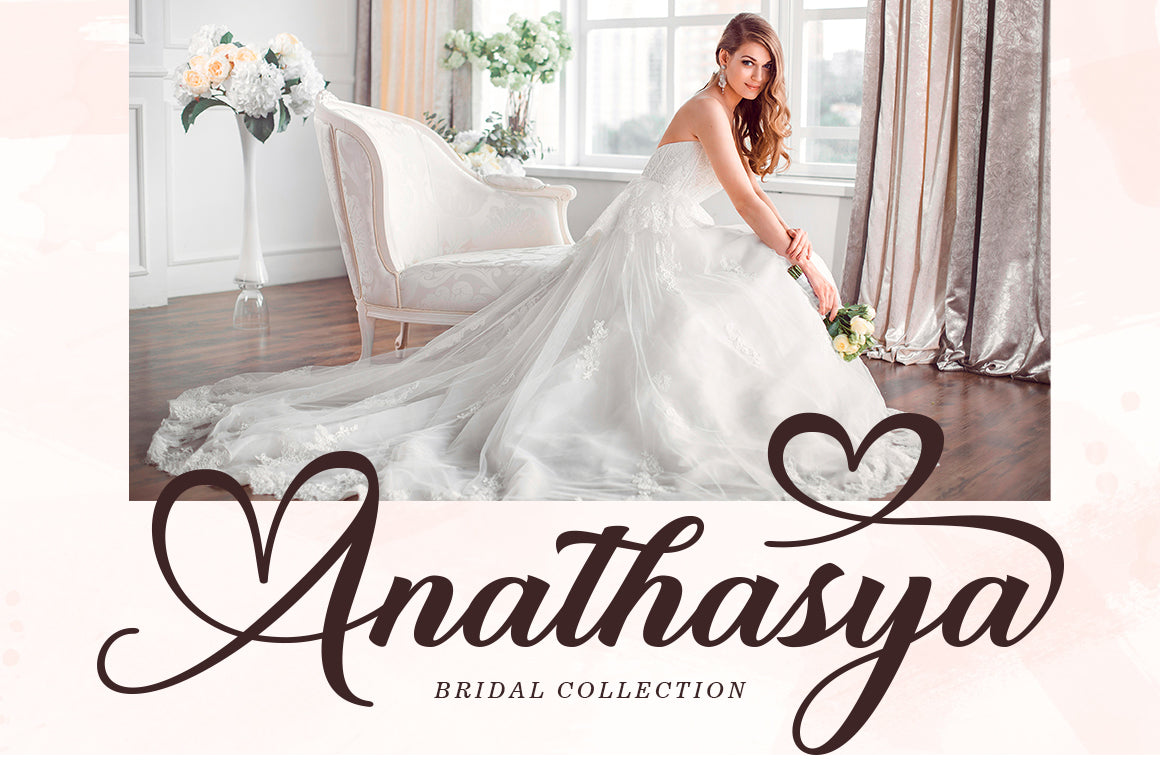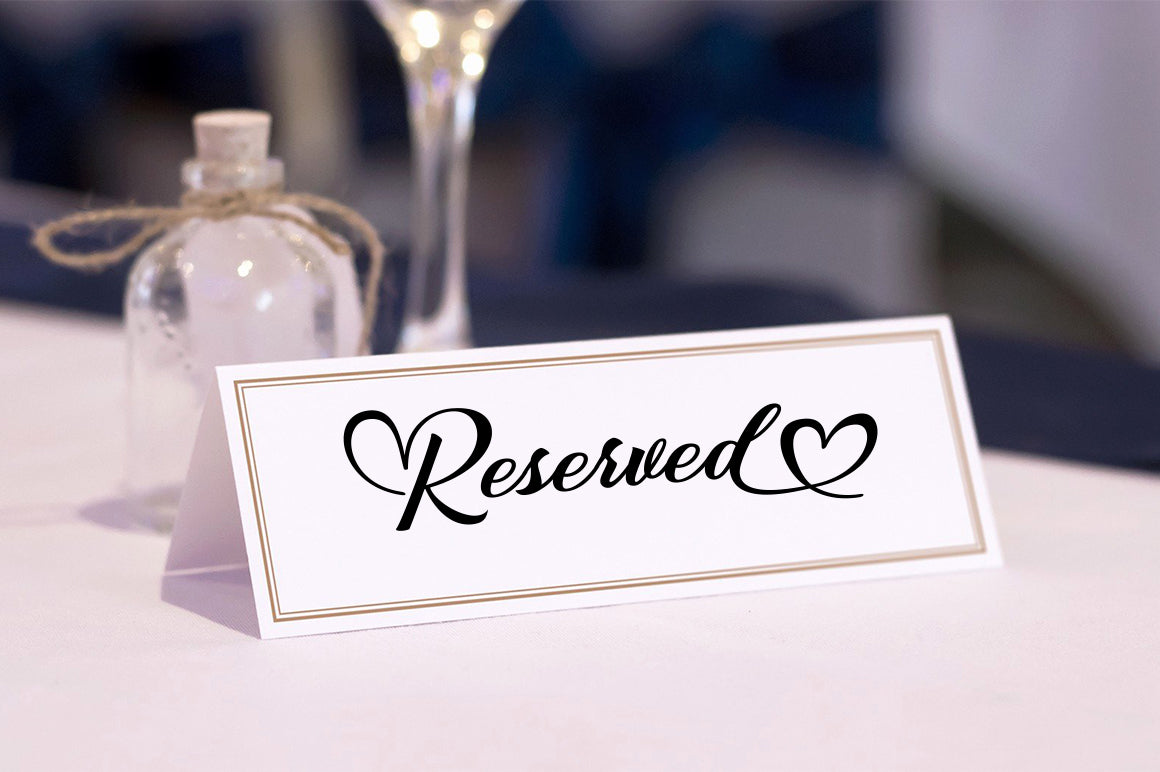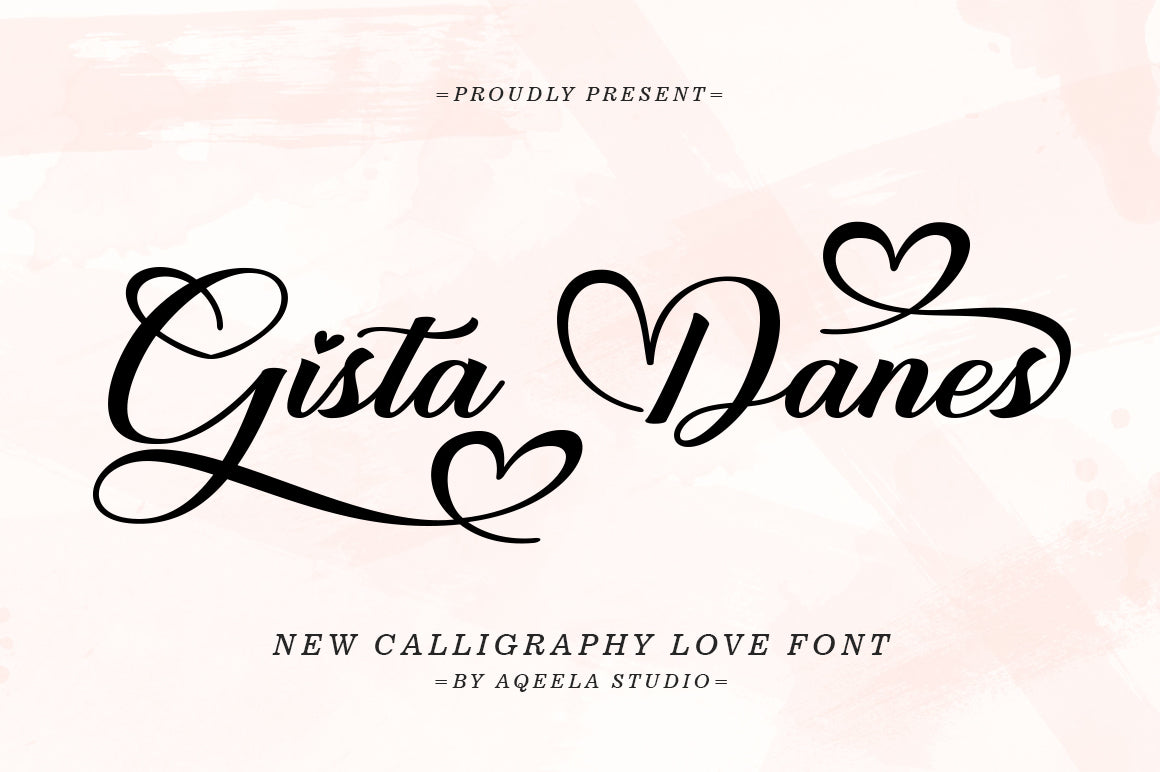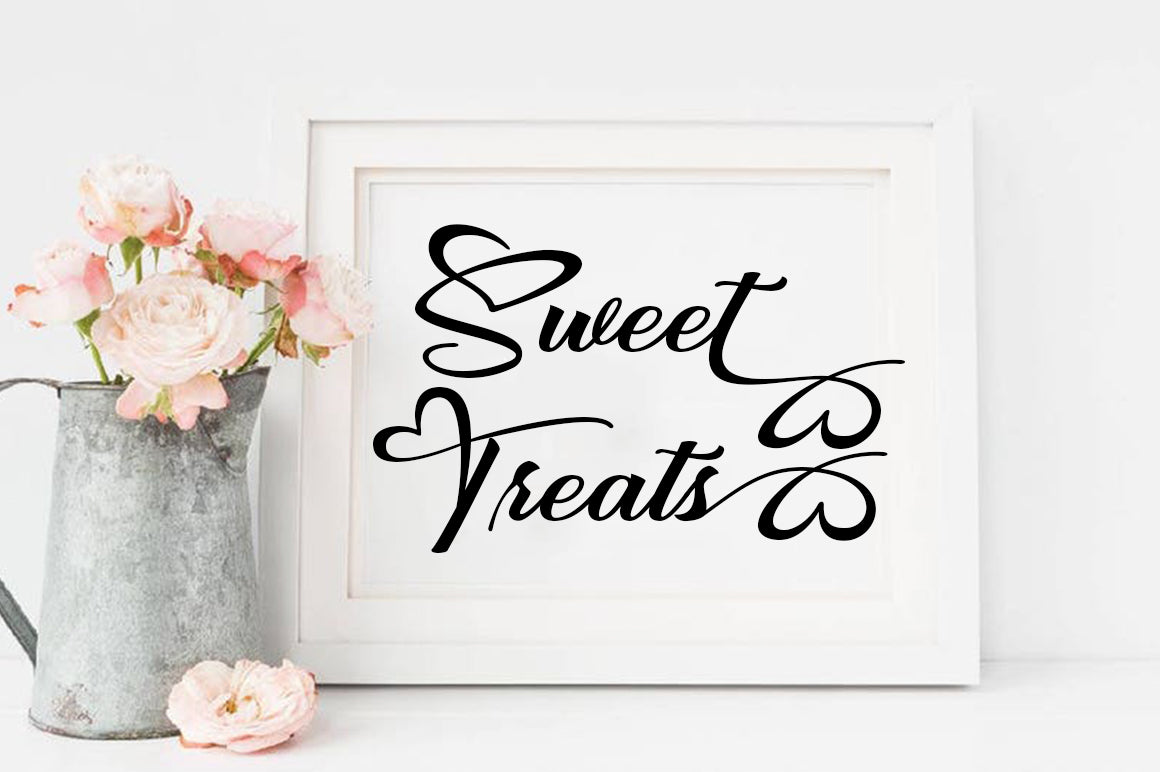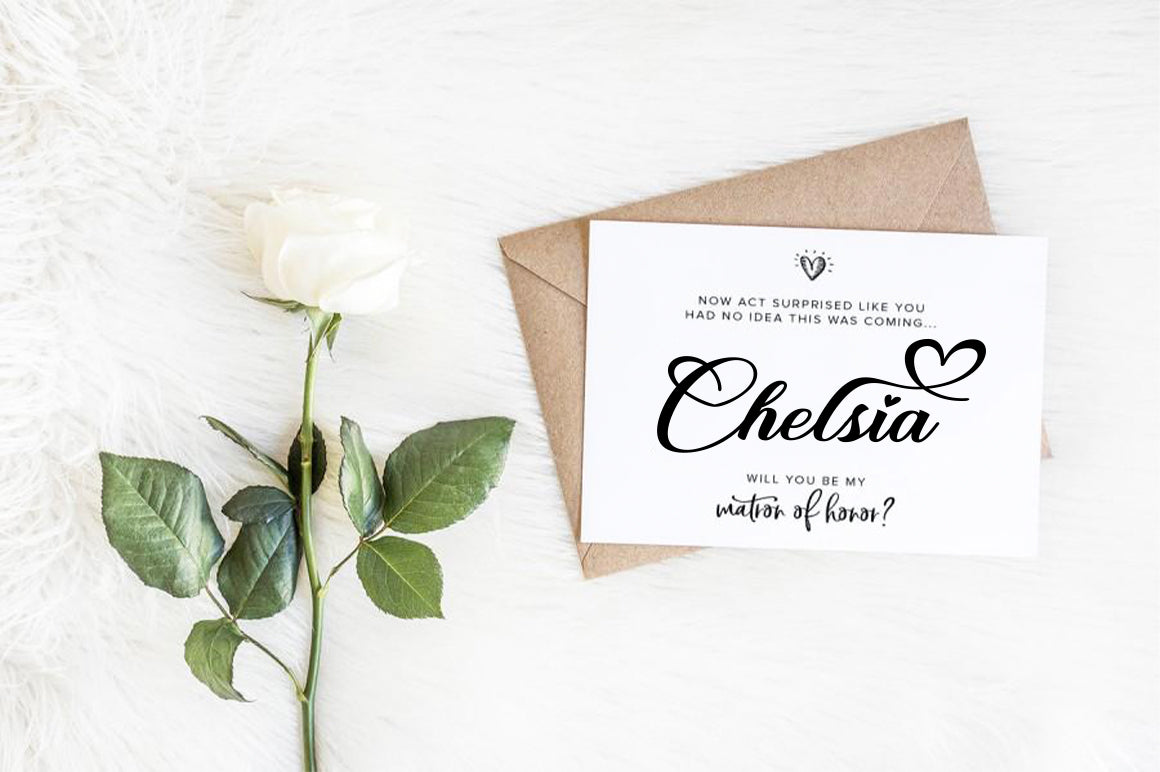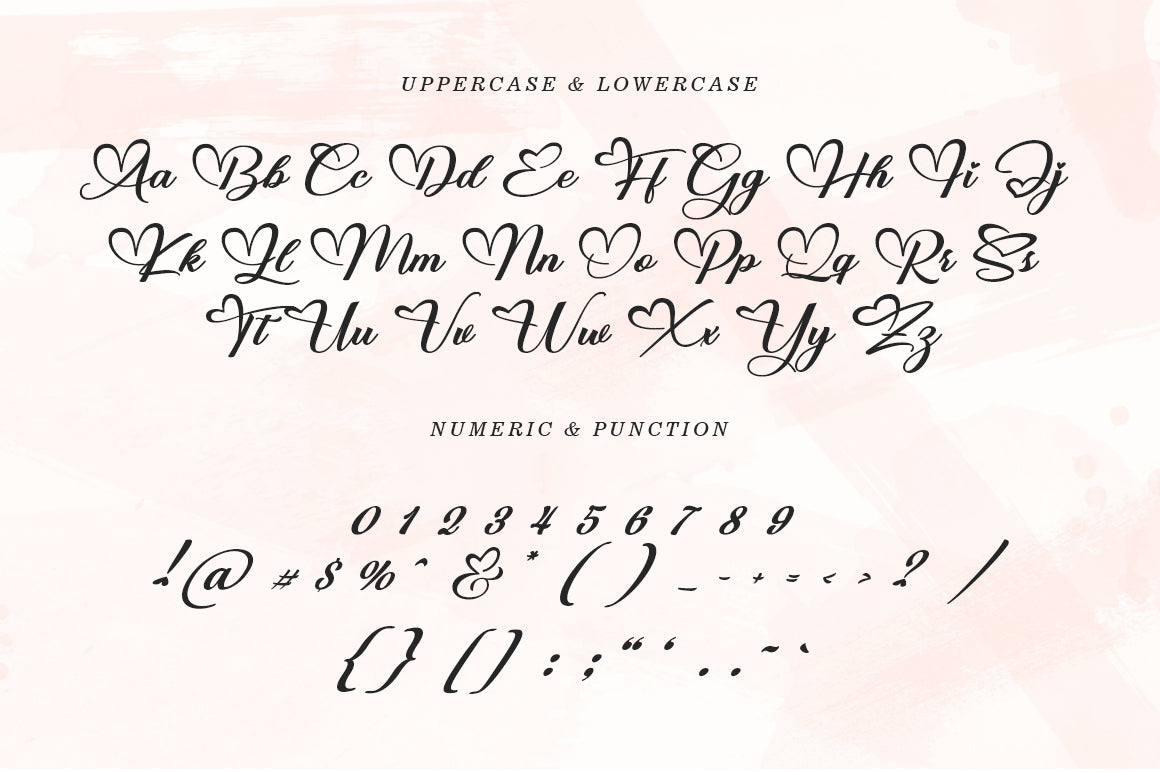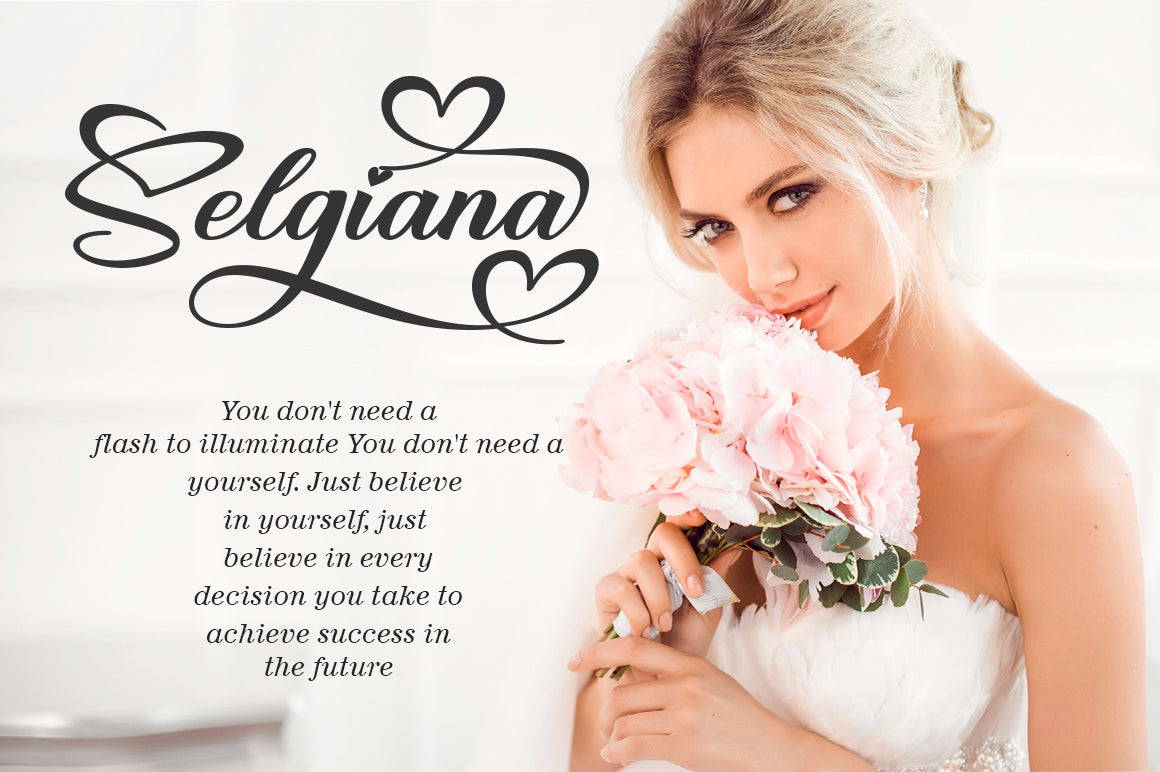
Gista Danes
About Gista Danes
Gista Danes feel equally charming and elegant. It looks lovely on wedding invitations, thank you cards, quotes, greeting cards, logos, business cards, and every other design which needs a handwritten touch. This font is PUA encoded, which means you can easily access all of the glyphs and swashes! It features a varying baseline, smooth lines, gorgeous glyphs, and stunning alternates.